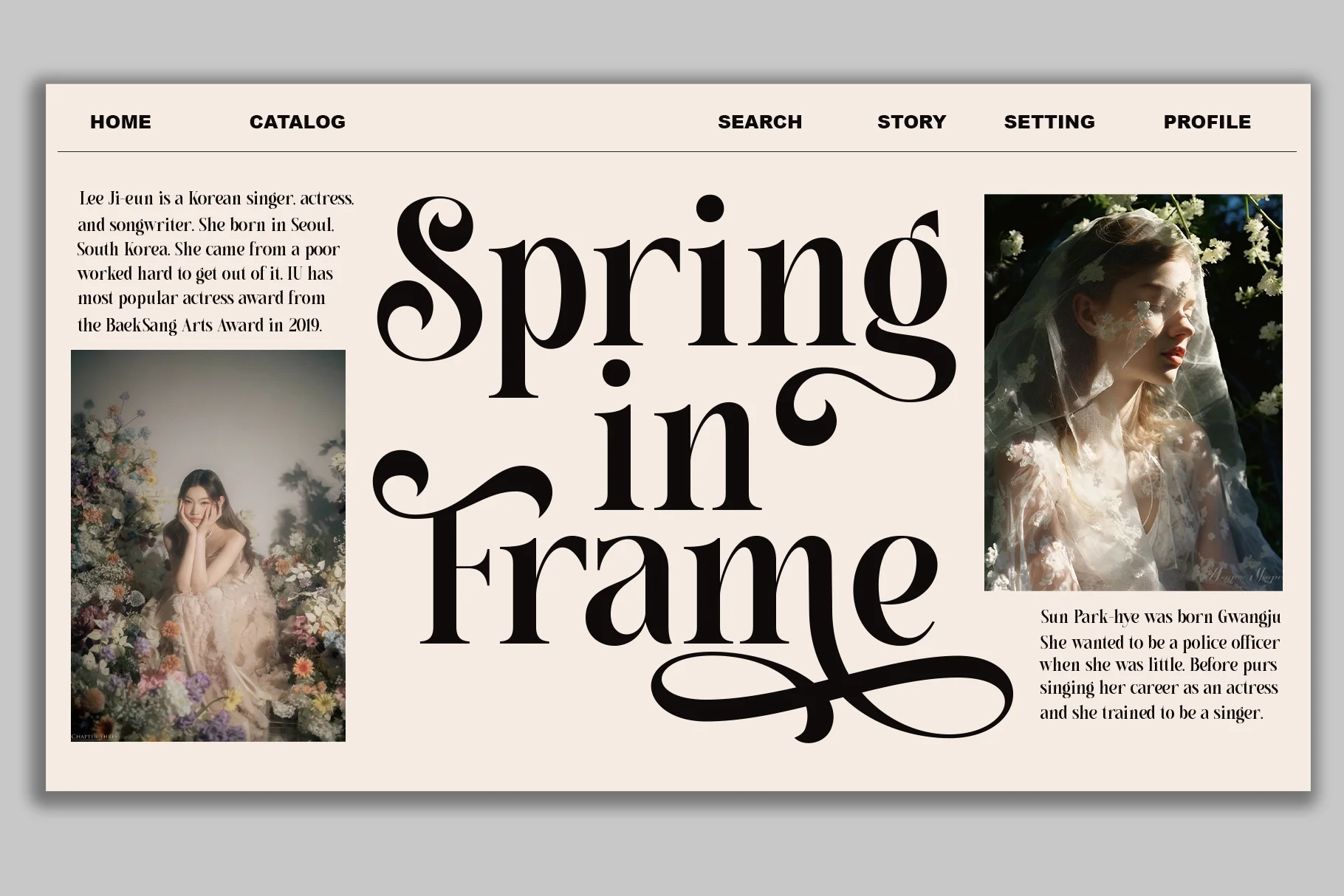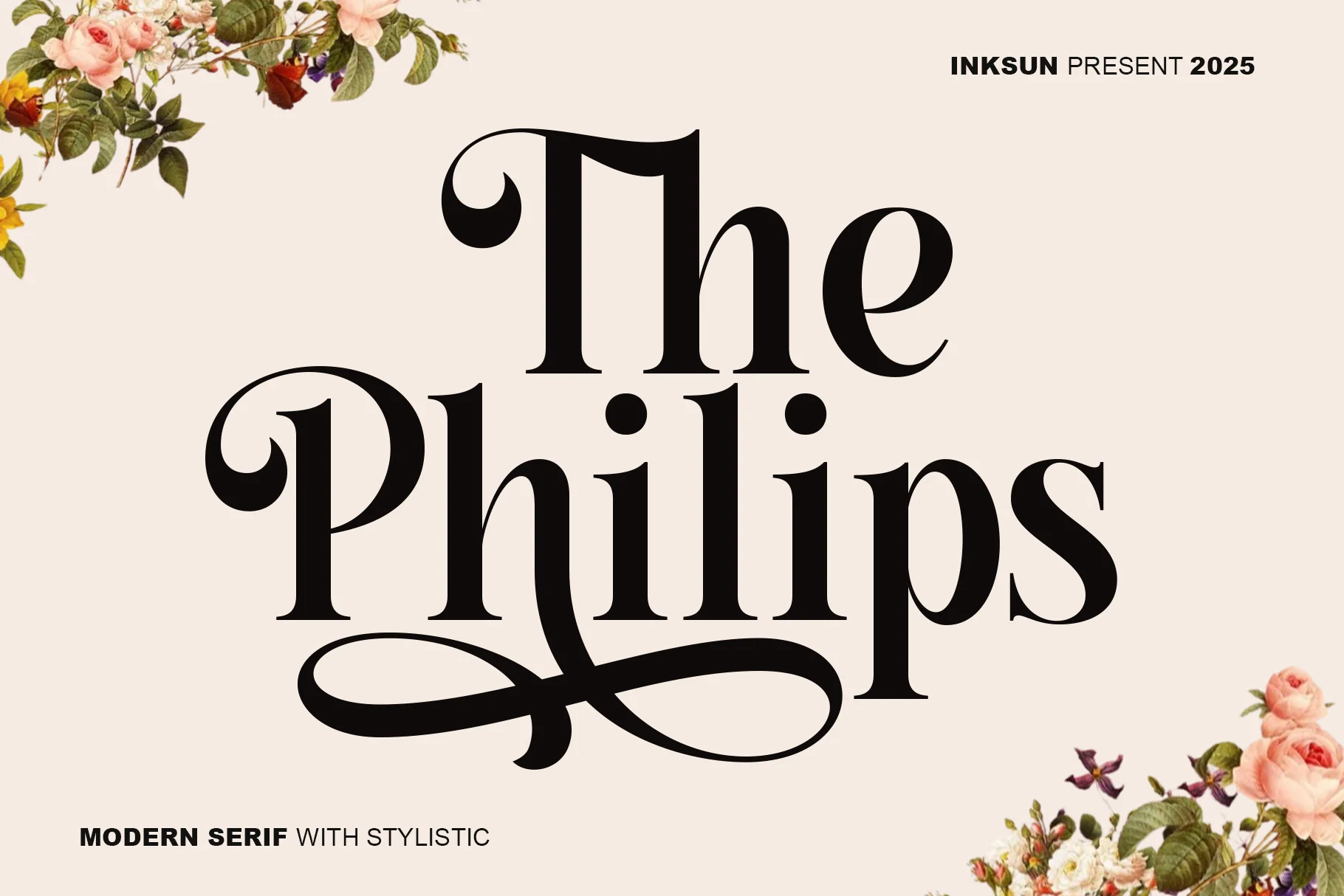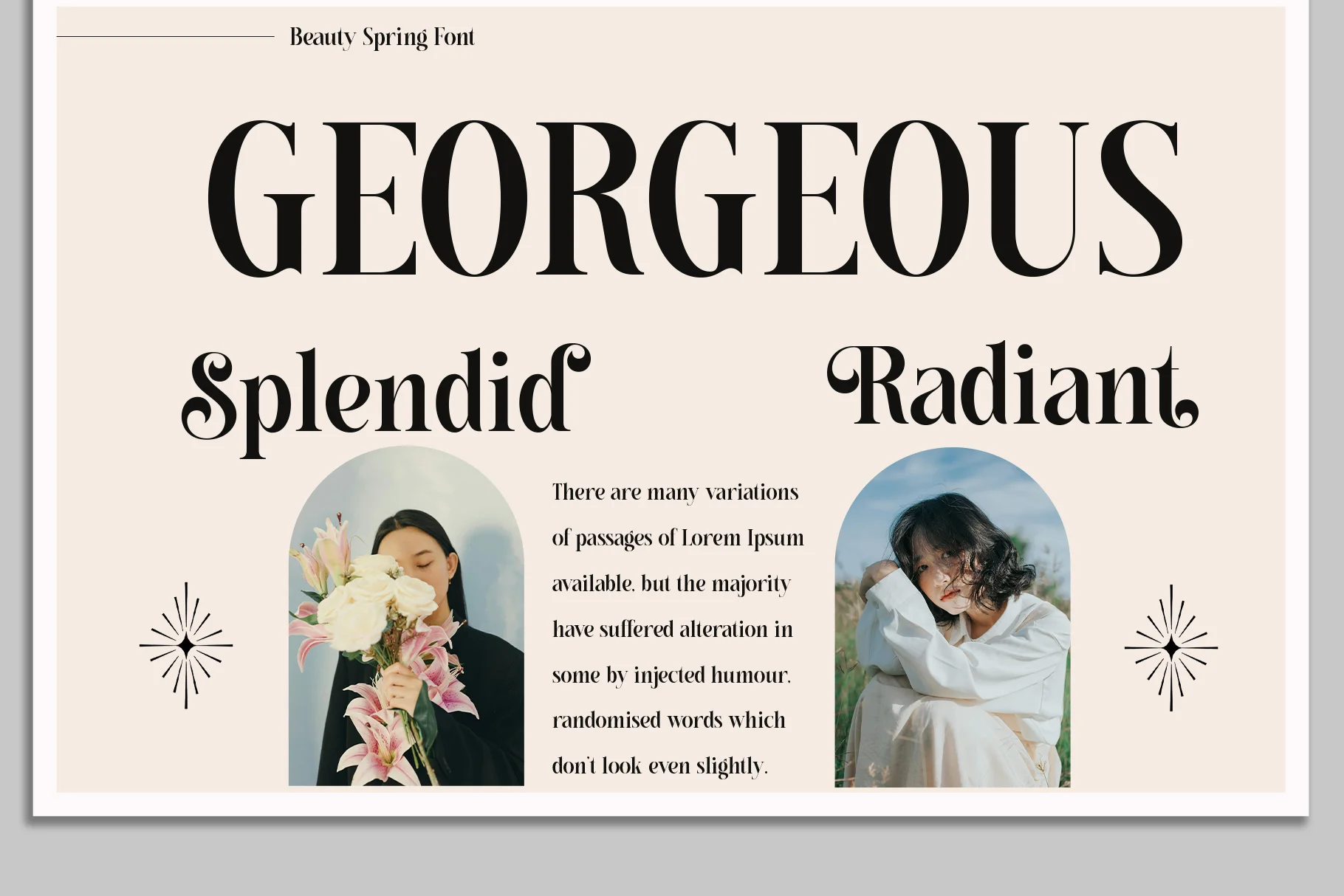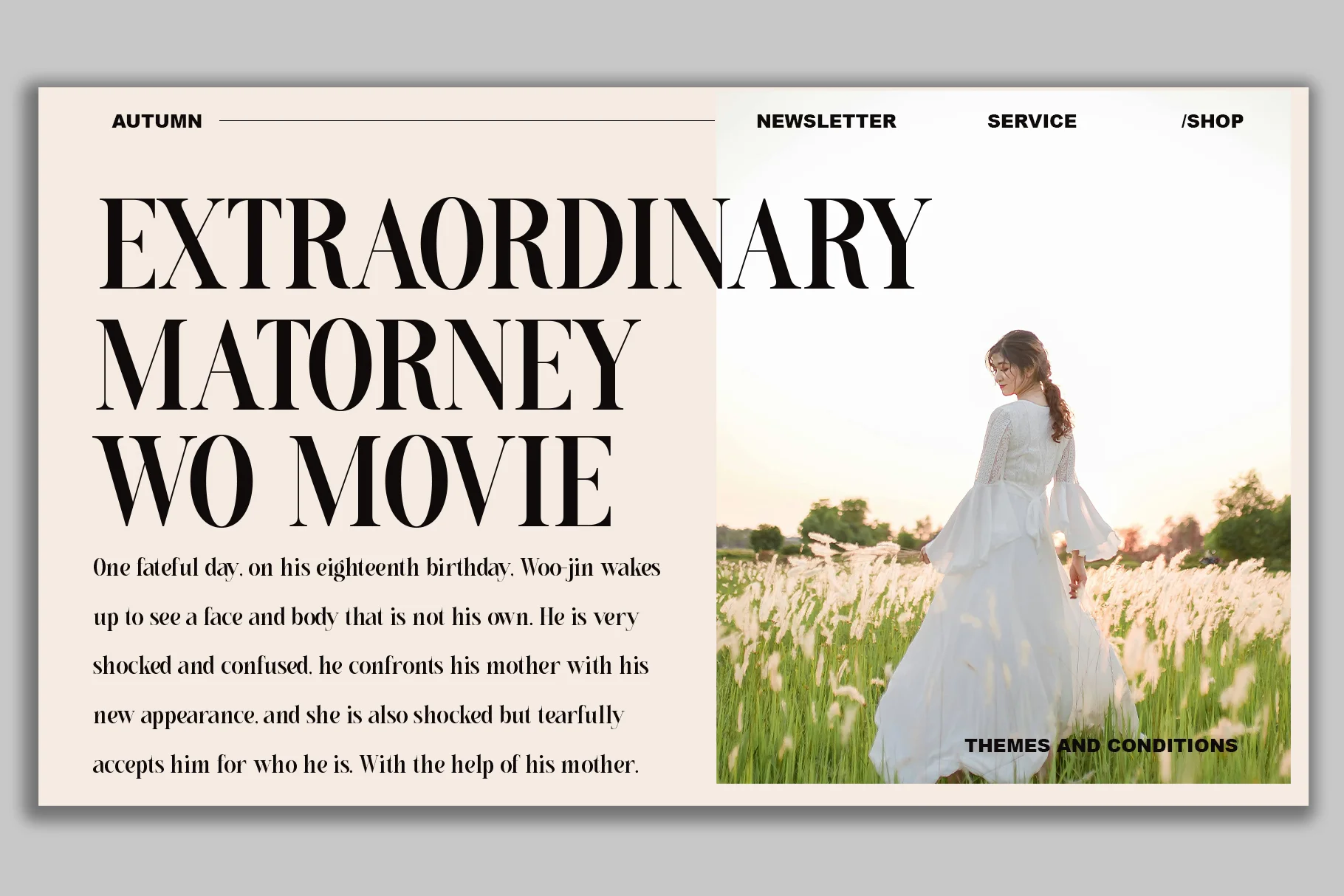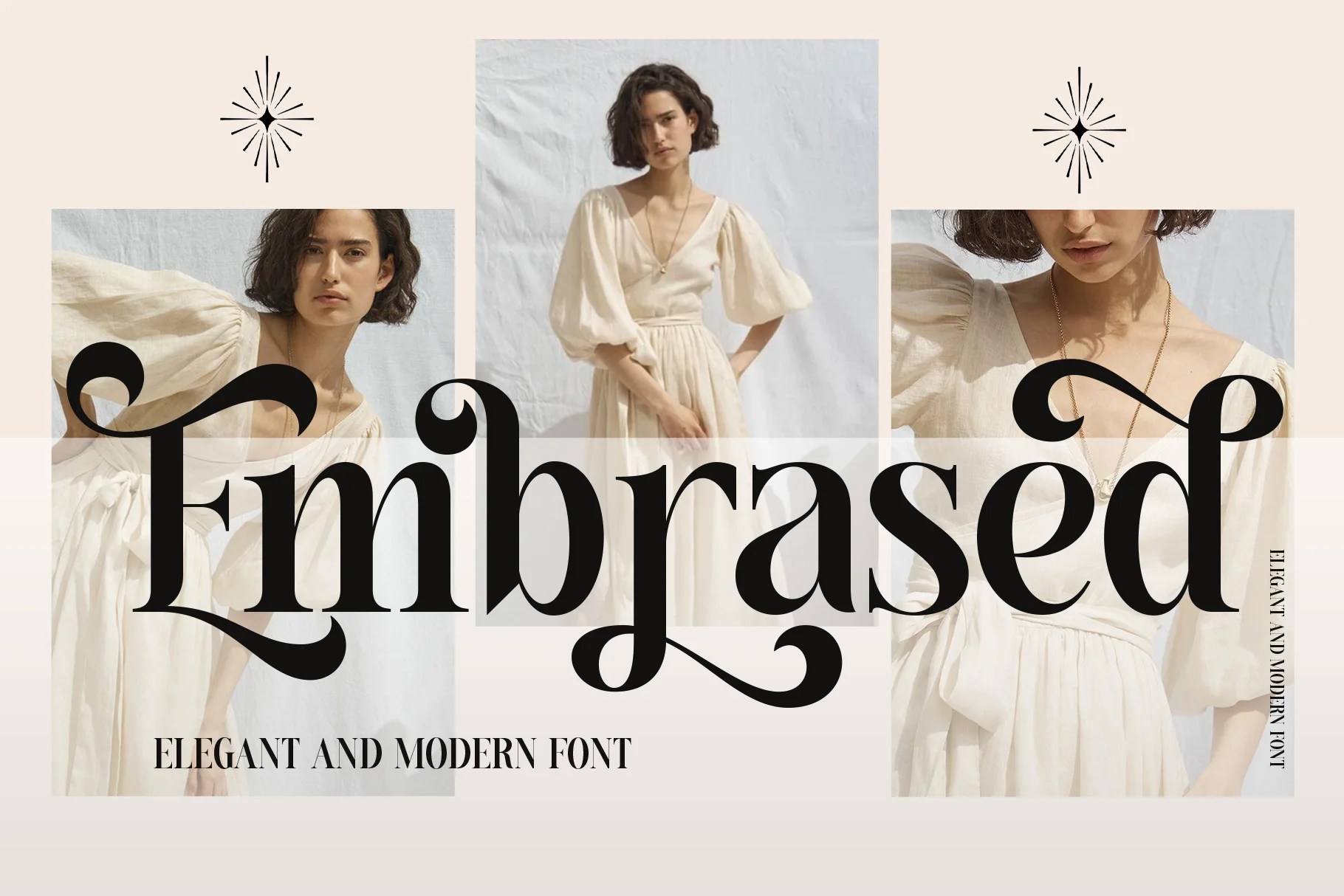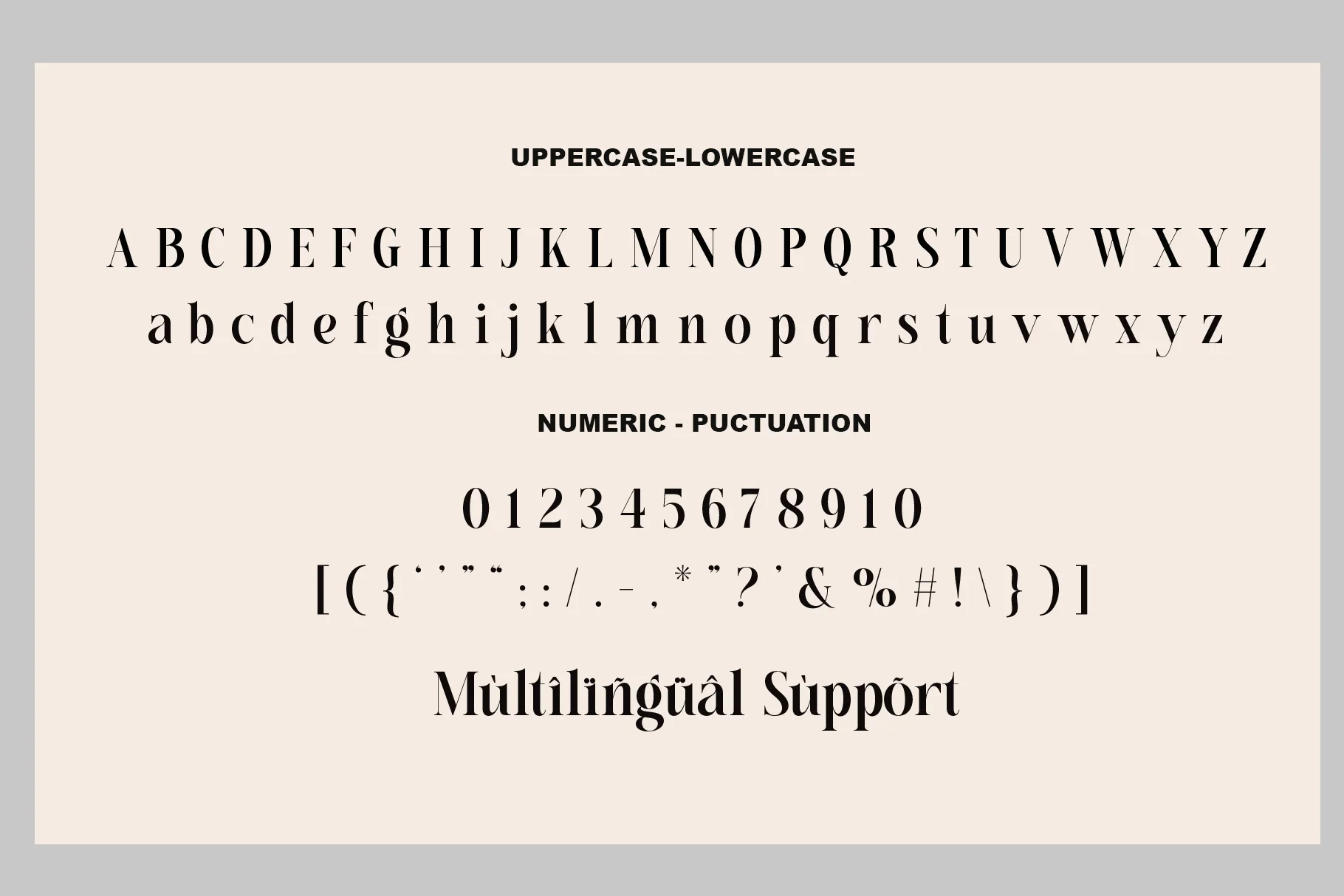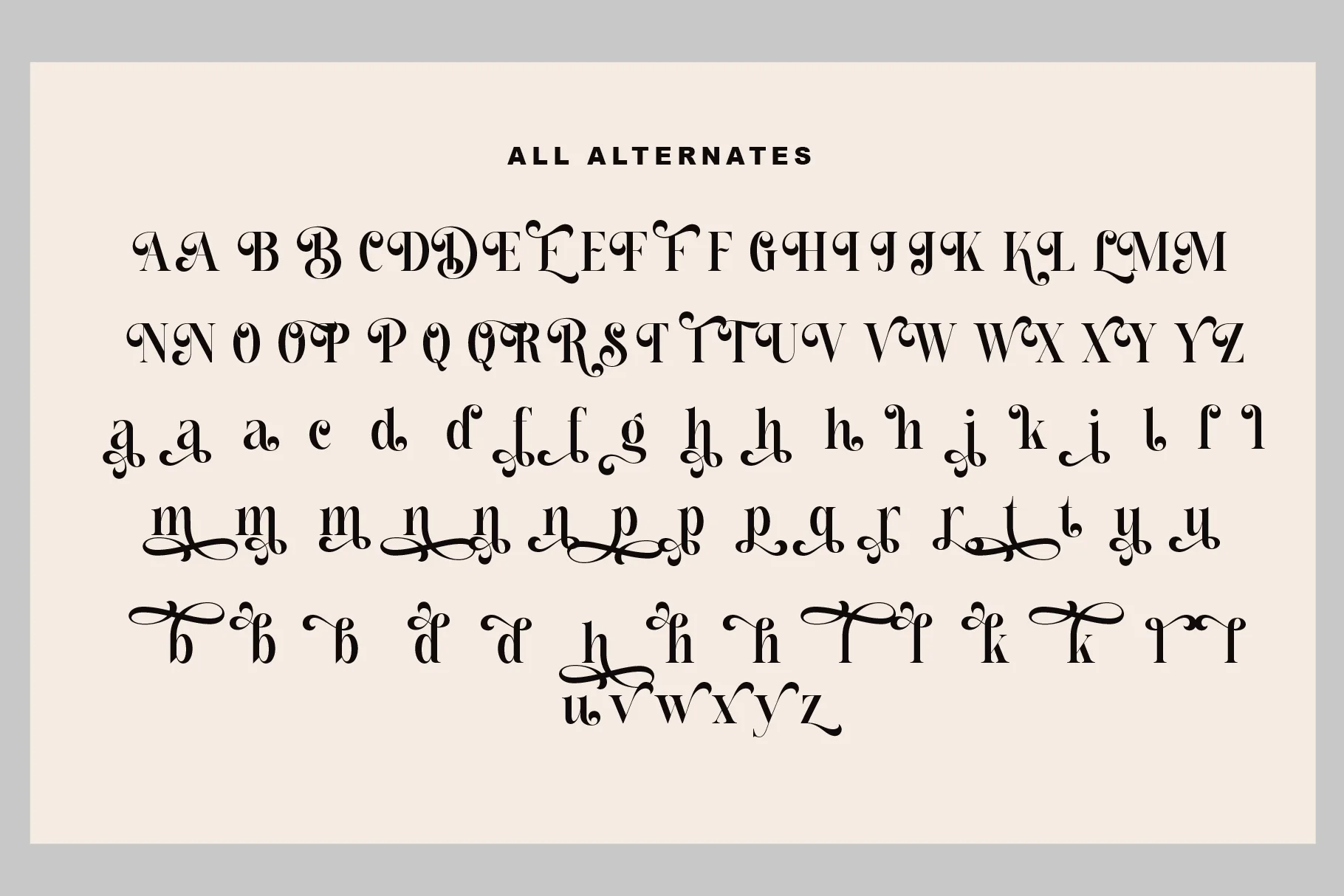
The Philips
The Philips will perfect for many project: book, magazines, logo, branding, photography, quotes, blog header, poster, advertisements, etc.